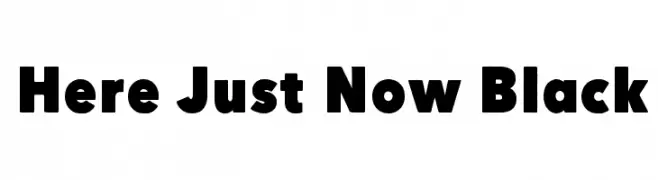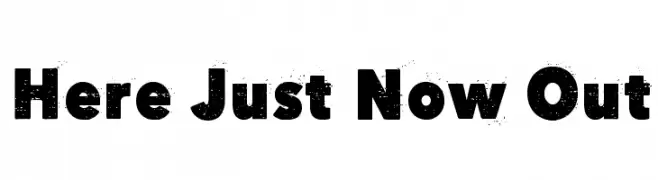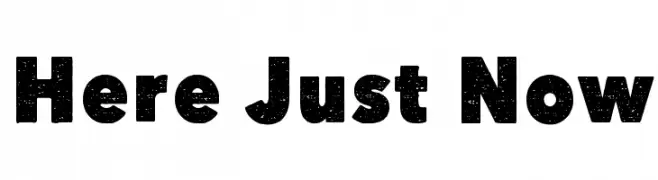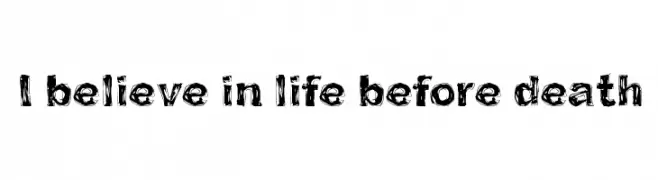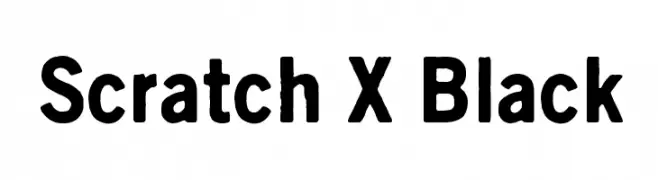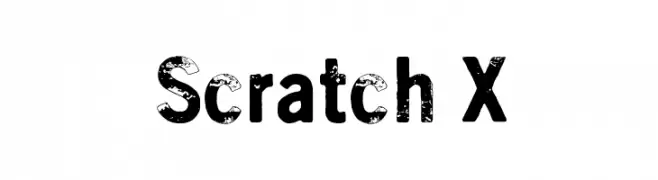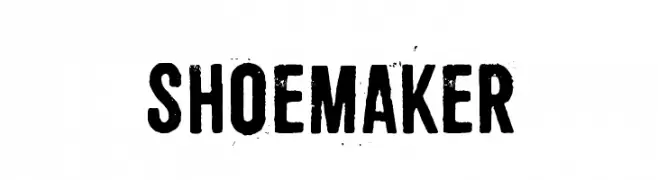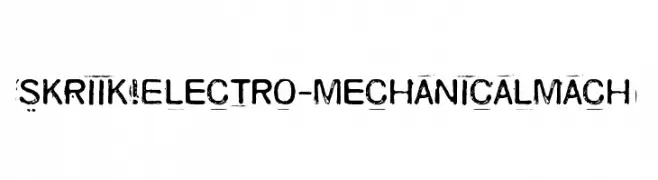
A bold, distressed font with a rugged, vintage style.
A bold, distressed font with a vintage, rugged appearance.
A bold, impactful font with thick, uniform strokes and a slightly condensed appearance.
A bold, textured font with a vintage, distressed look.
A bold, rugged font with a distressed, handcrafted appearance.
A bold, distressed font with a grunge texture, ideal for vintage or industrial designs.
A distressed, industrial-style font with a bold, mechanical appearance.
A bold, graffiti-inspired font with a hand-drawn, energetic style.
A bold, hand-drawn font with a rough, sketch-like appearance.
A bold, distressed font with a hand-painted, vintage look.